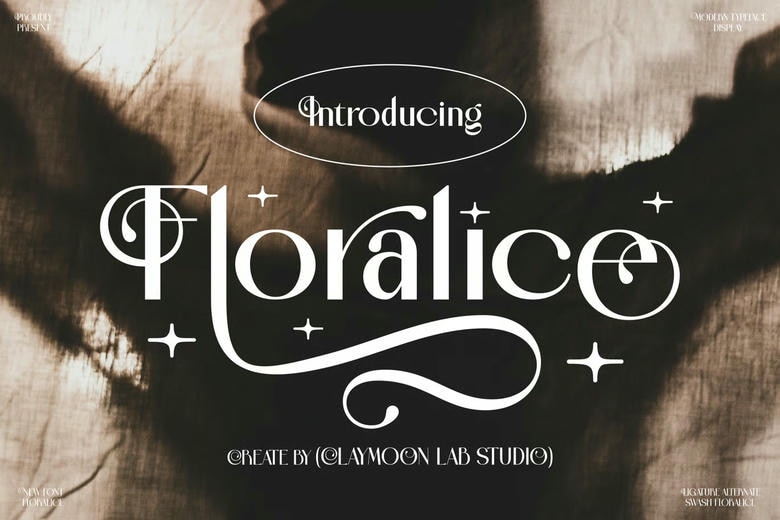
Floralice Font
Floralice is a modern display serif font with high-contrast letterforms, graceful curves, and a refined look. It combines classic elegance with a fresh, contemporary feel. Sweeping swashes and delicate details bring a whimsical, organic touch to your creative work.
Floralice comes with custom ligatures and alternate characters, letting you create unique, personalized typography. It works well for luxury boutiques, organic brands, or travel editorials.
Floralice Serif Font